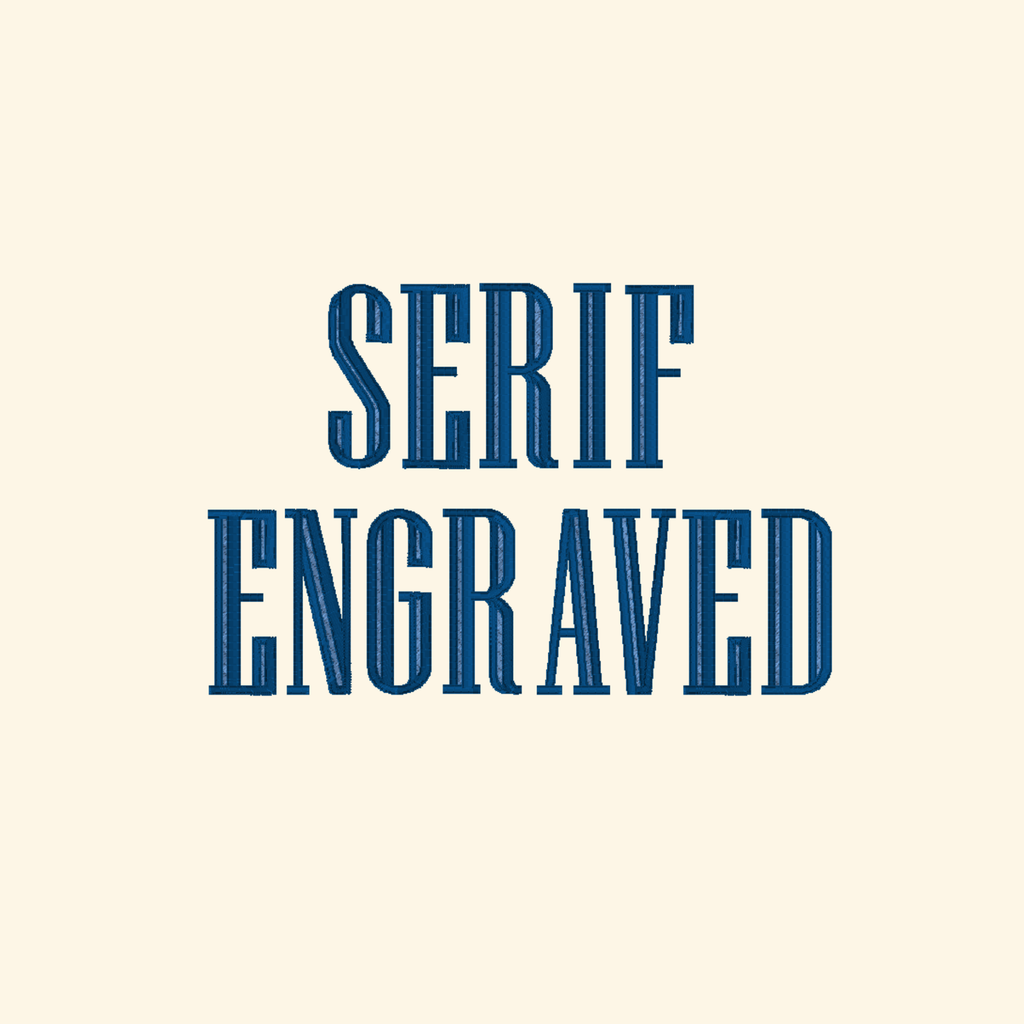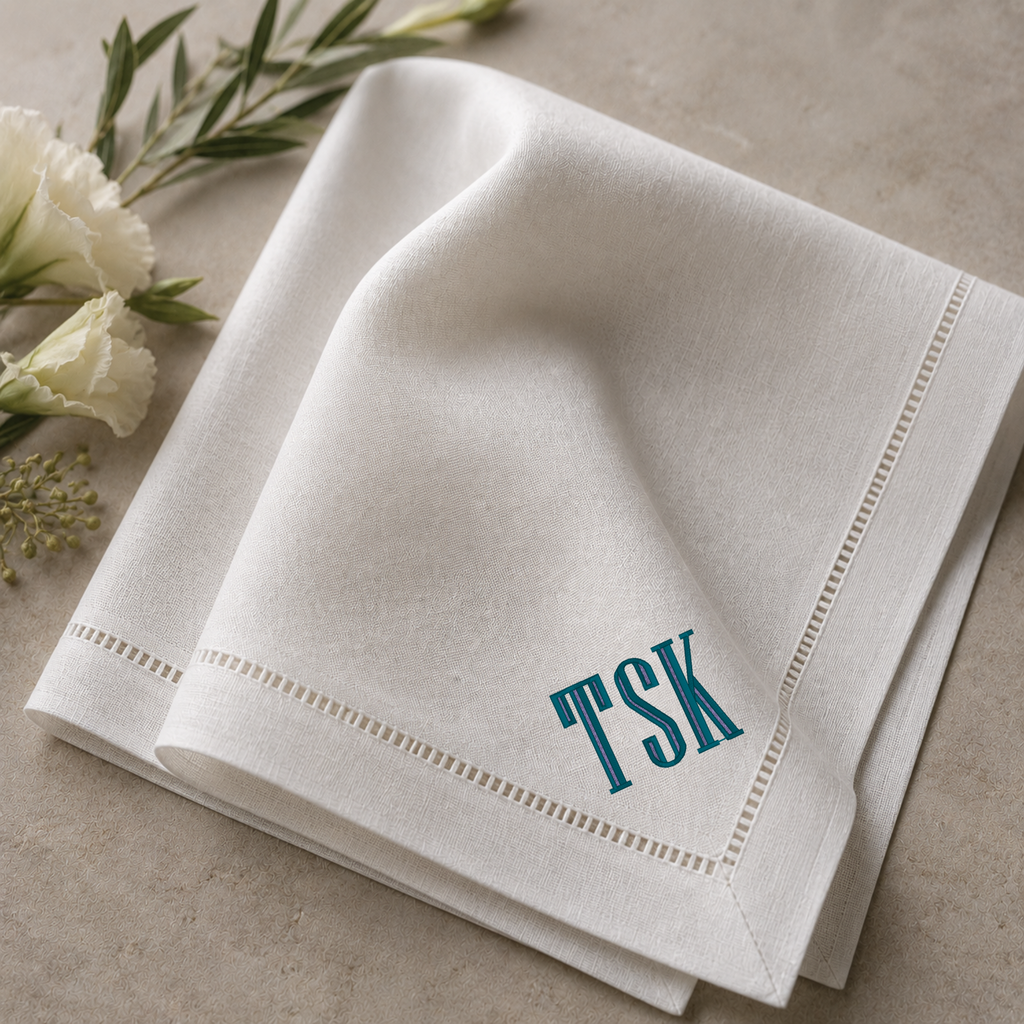
BX font - Serif engraved monogram, Strictly font, Machine embroidery letters
🪡Serif engraved monogram - premium embroidery font (BX format only).
Take your projects to the next dimension with this professional machine embroidery alphabet! Specially digitized for high-impact results, this font is the perfect choice for creating any item that requires embroidery.
Full Alphabet (uppercase A–Z)
Numbers (0-9)